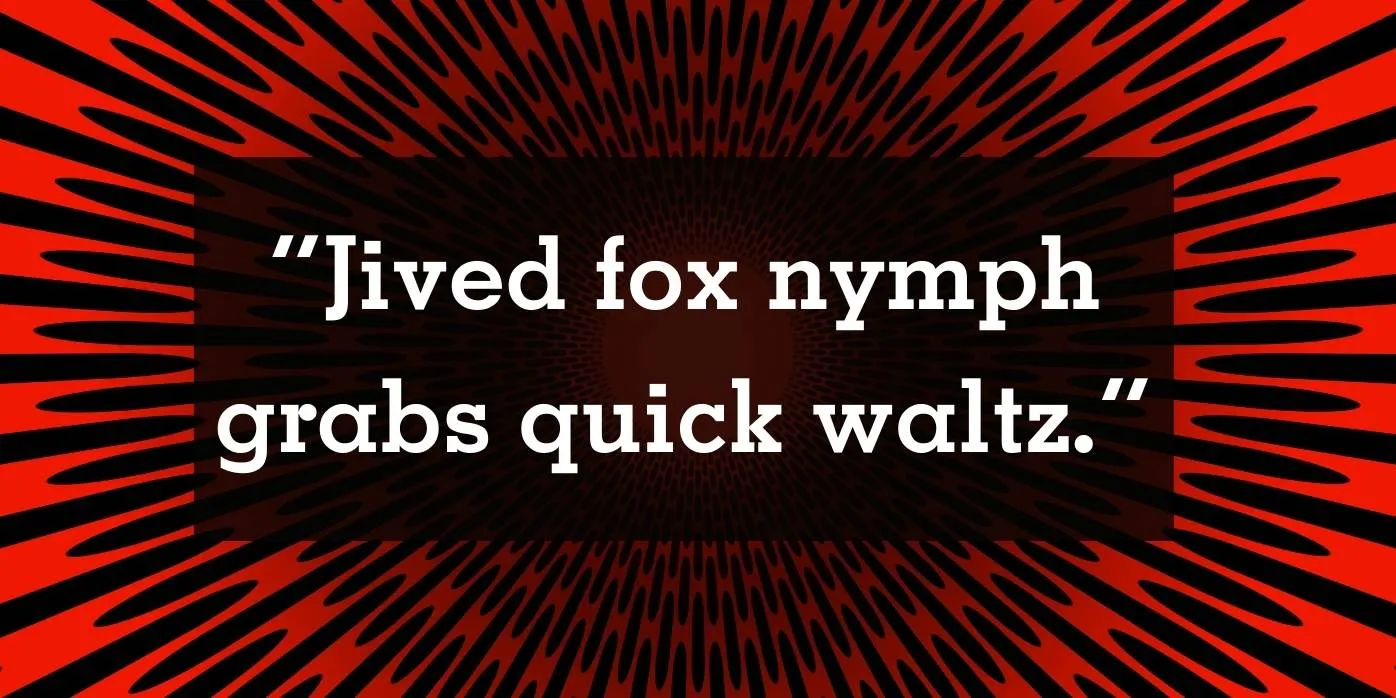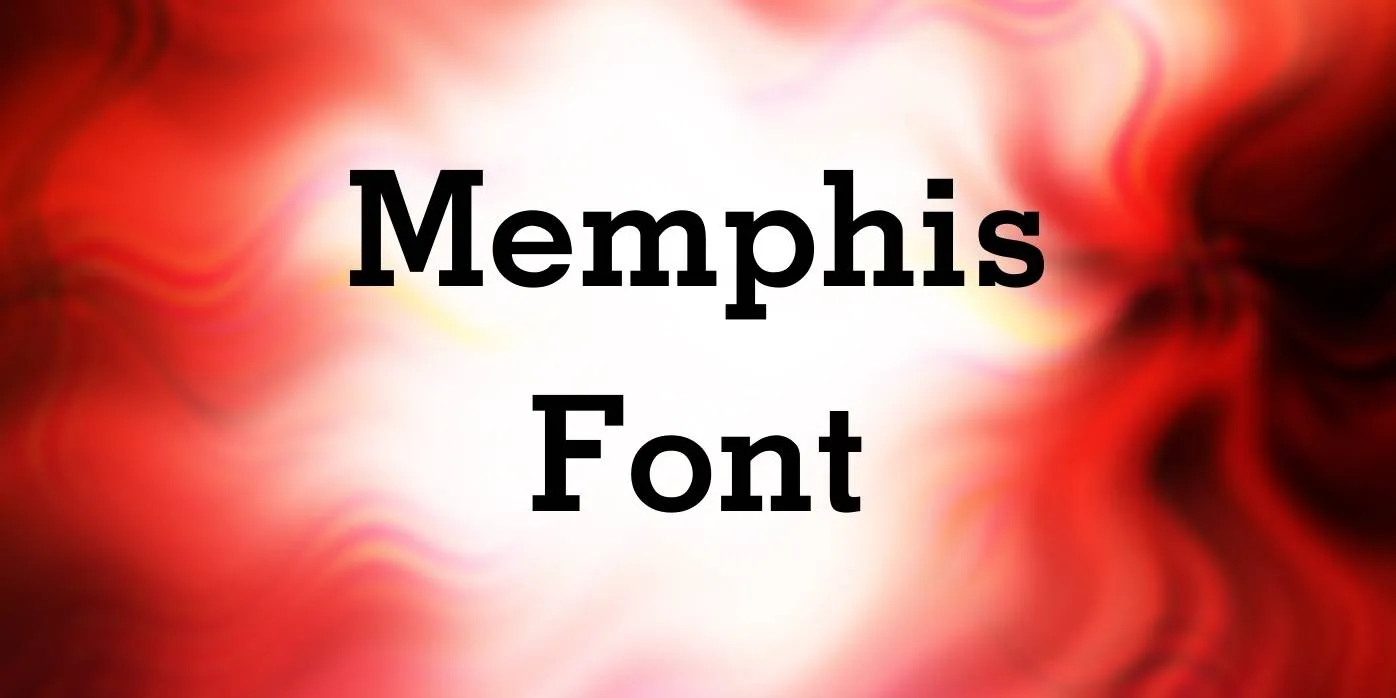
Memphis Font
Memphis font was developed by a very famous designer Rudolph Wolf. This typeface belongs to the Serif typeface. This classy font is popular for its very strong and thick strokes. It was designed in 1982 and soon became popular as it was used on posters.
This staggering typeface comes in unique Glyphs and has a historical feeling to it. Its copy and paste function is very perfect for various projects. Trajan Pro Font is most similar to this awesome font family. If you are looking for a unique and classy font, this is a perfect choice!
This typeface has a very strong look. It’s also popular for its unique glyphs and attractive styles. So, if you want to get massive fame you can pick out this amazing typeface. Its round corners, high x-height, and low contrast give it a very different look.
This typeface is not available on Dafont you can download it from our websites and enjoy its features. The ascenders and descenders are short which gives it an even more unique feel. This font would be perfect for headlines, posters, or even logos! So, if you want to make a statement with your design, then this typeface is the best font for you!